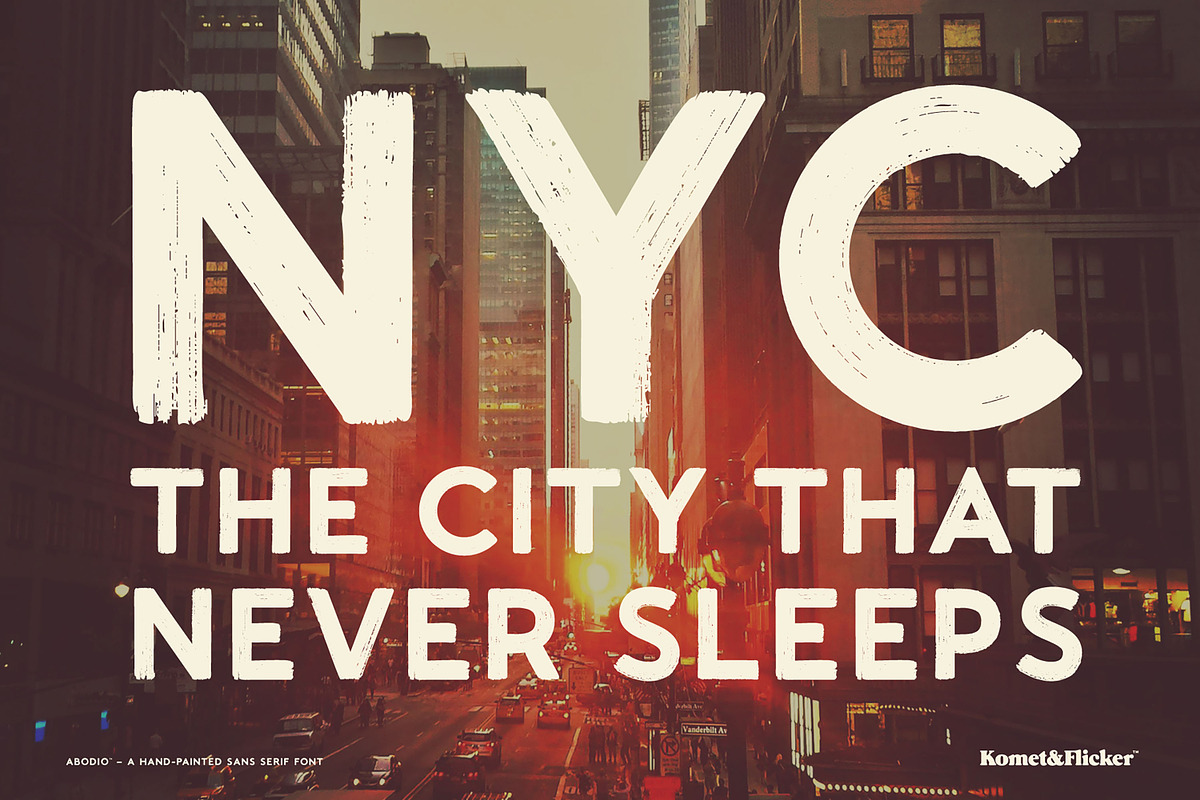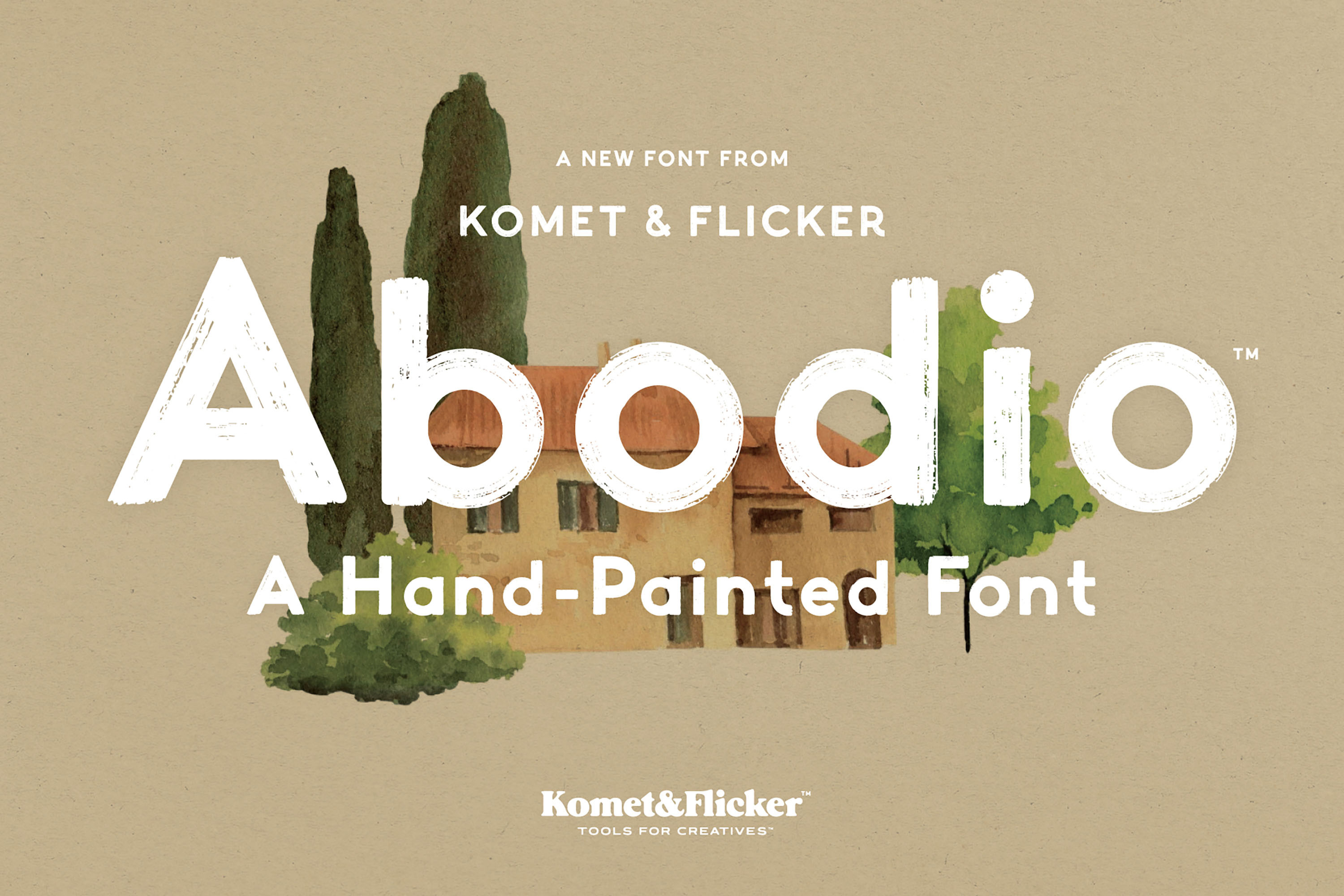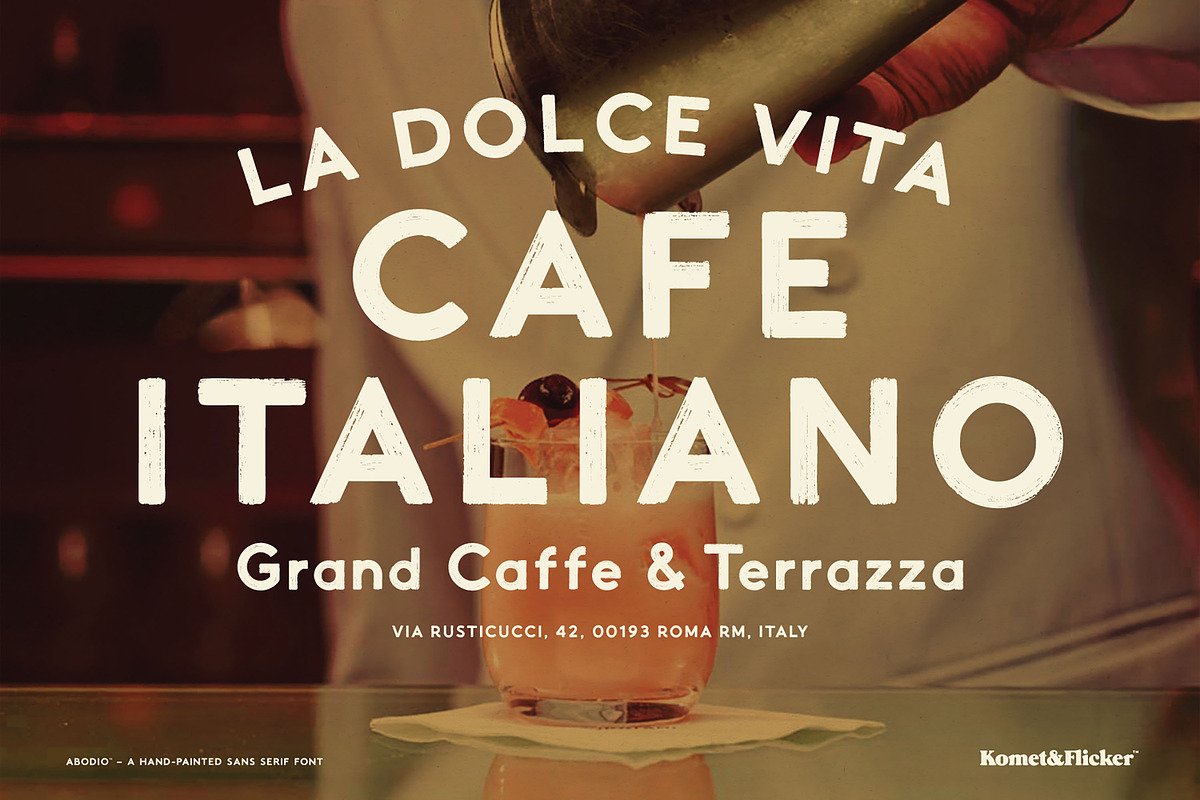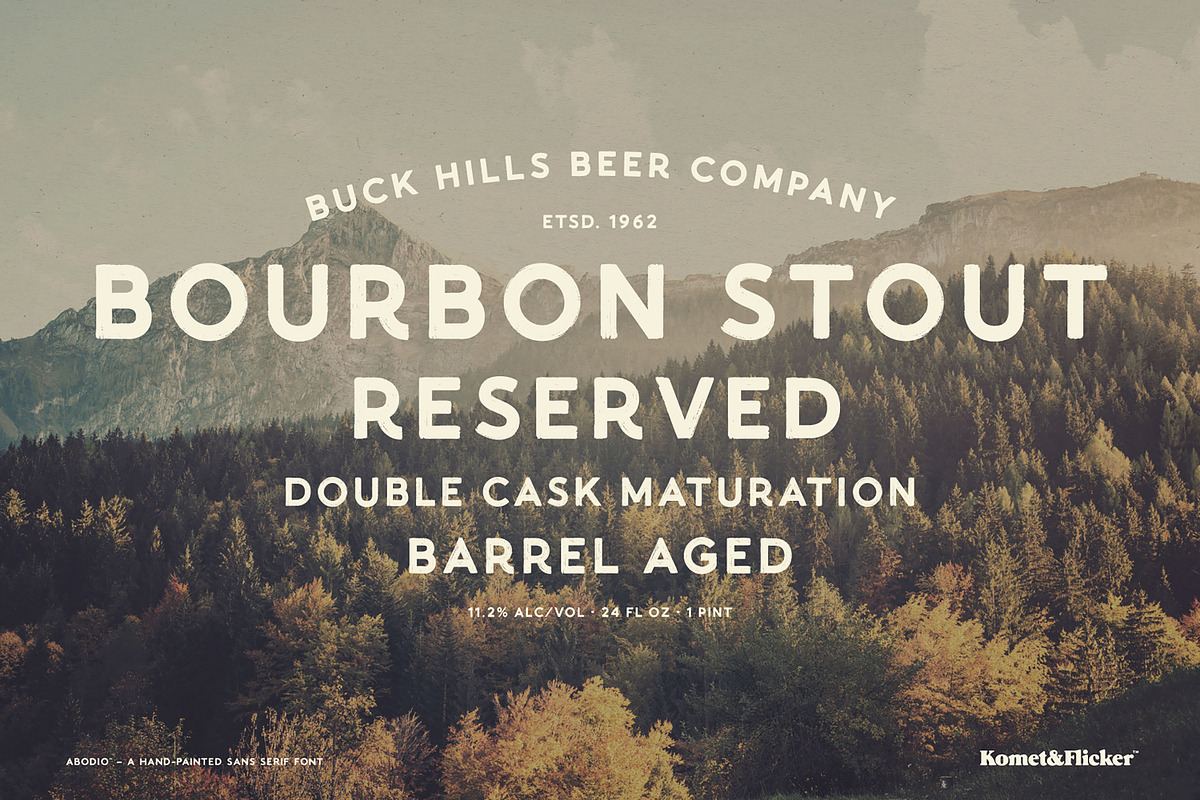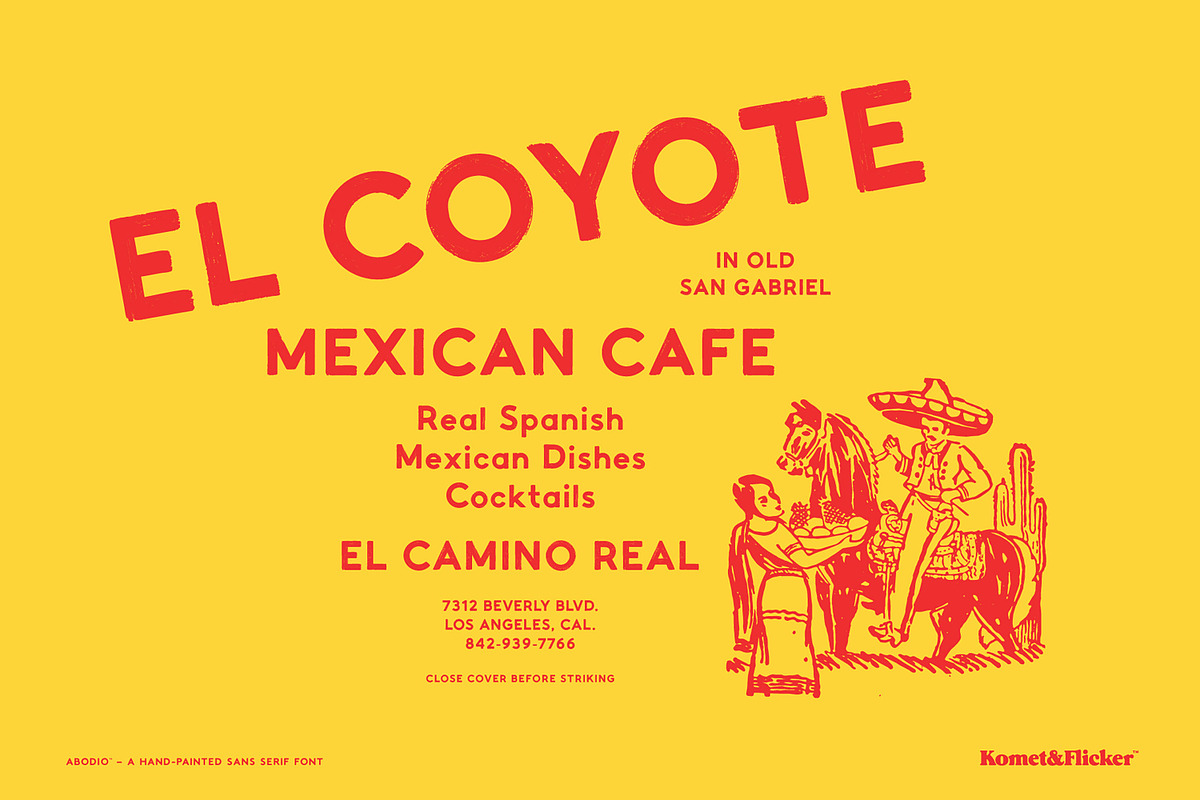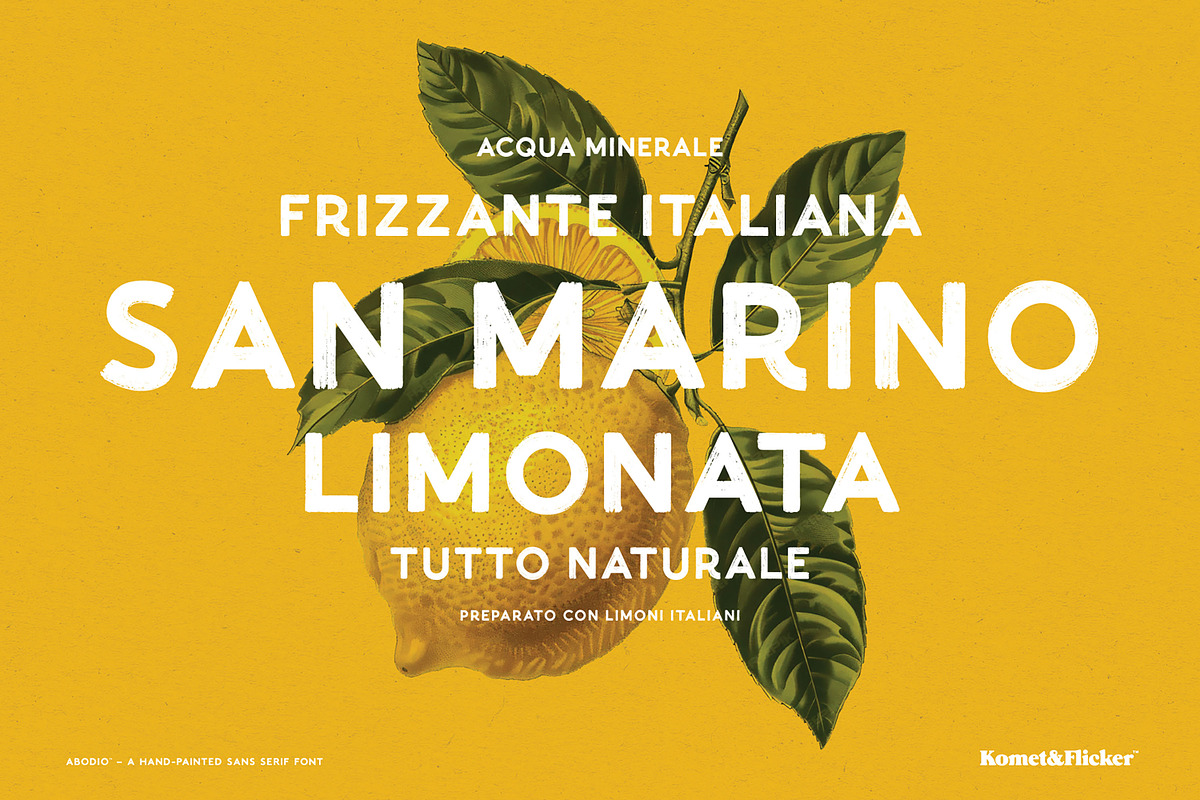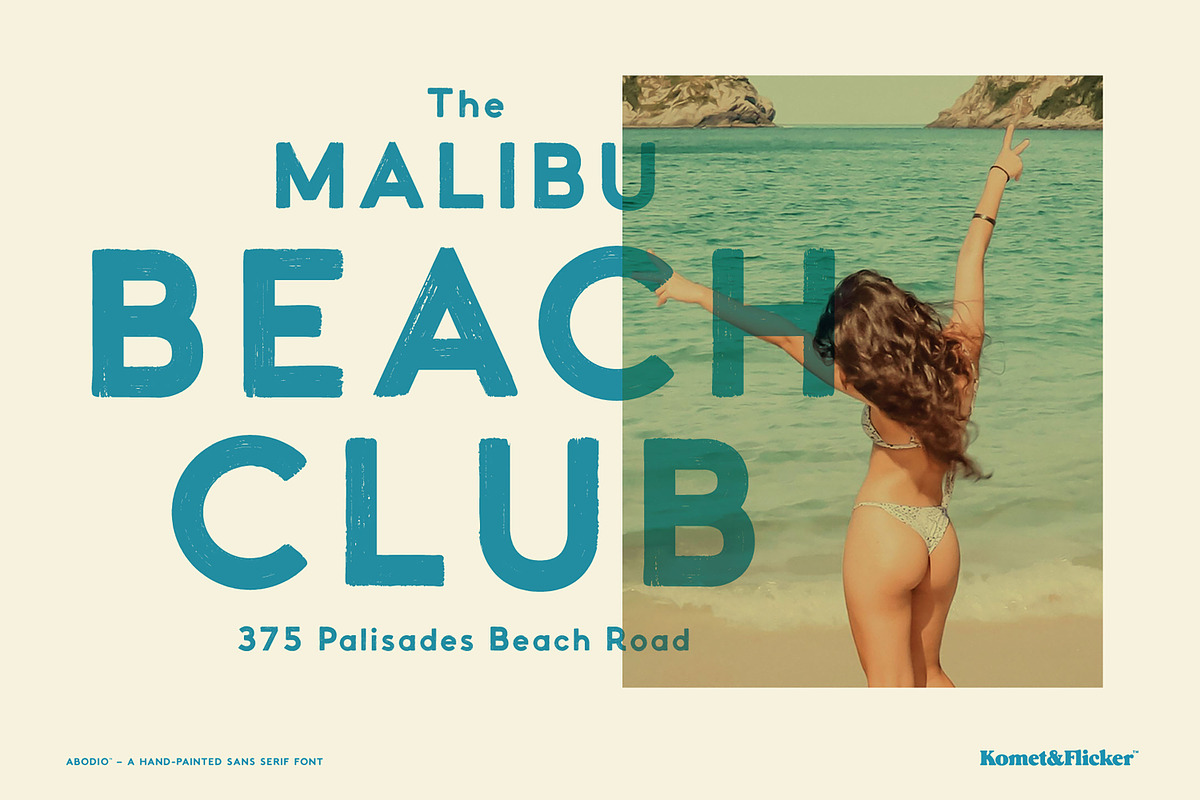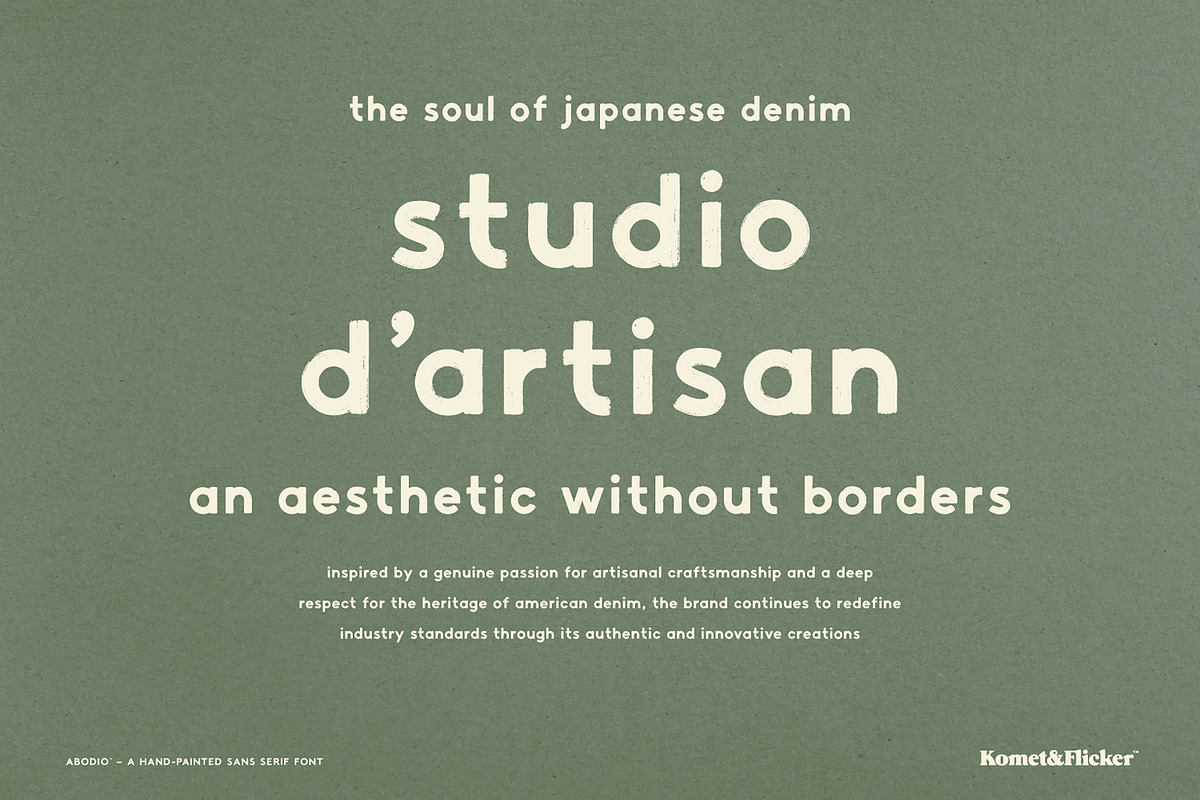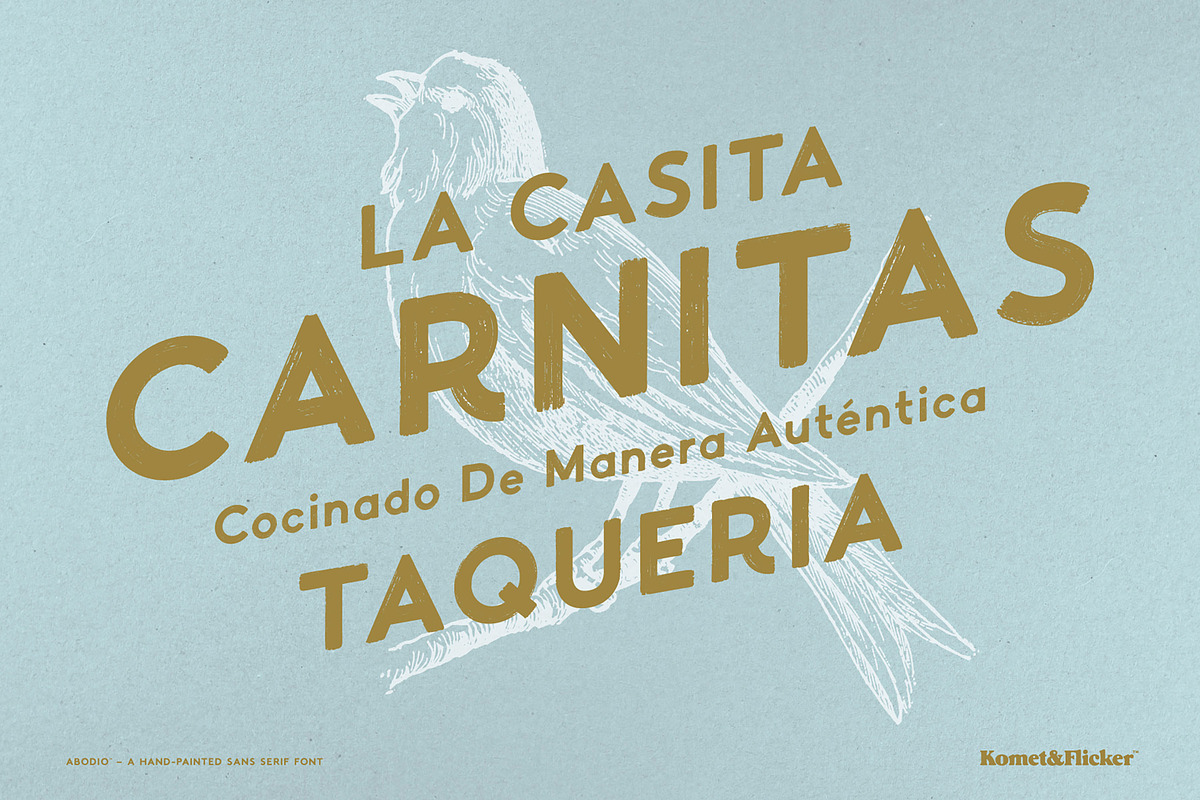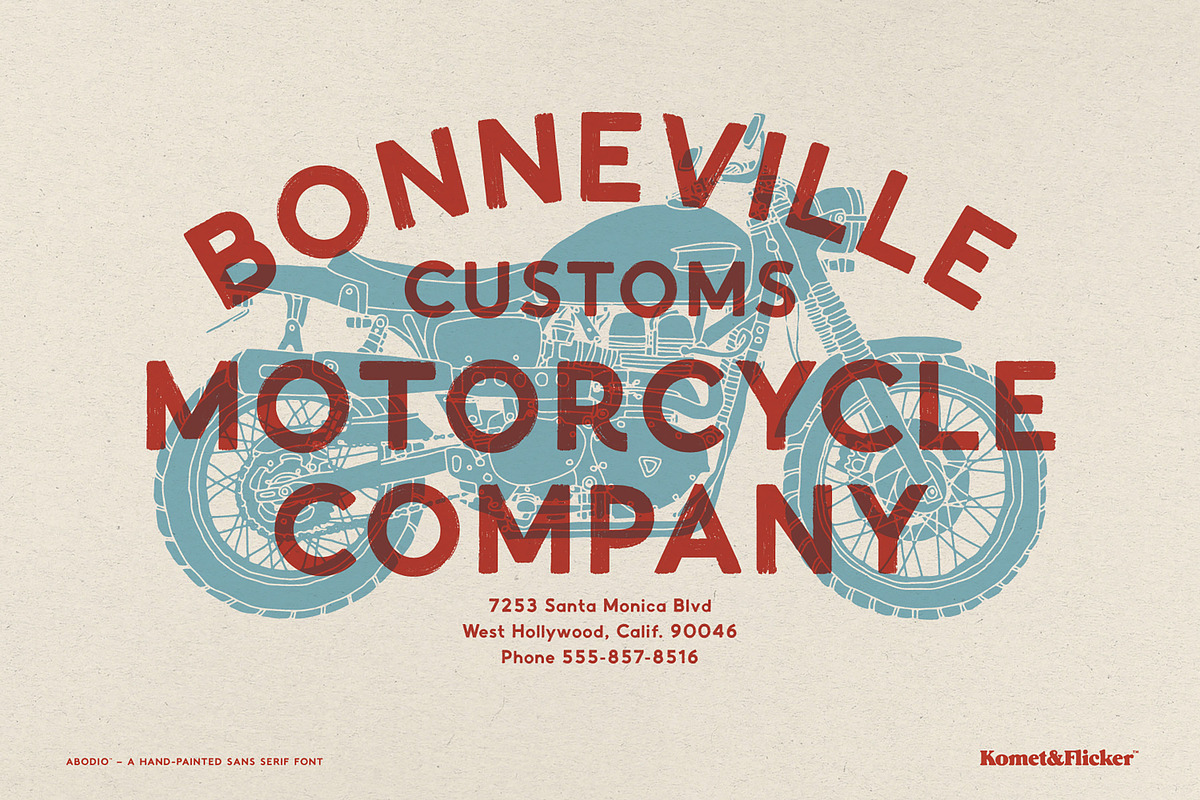
Abodio - A Hand-Painted Font
Abodio is a rough hand-painted typeface crafted to bring raw character and artistic energy to your designs. With its textured brush look, Abodio captures the authentic texture of real brush strokes and is perfect for projects that need a bold, human touch.
Full A-Z uppercase and lowercase latin characters
Select European specific characters
Numbers, punctuation, and select symbols
Pre-made common fractions
A set of nine alternate uppercase character glyphs